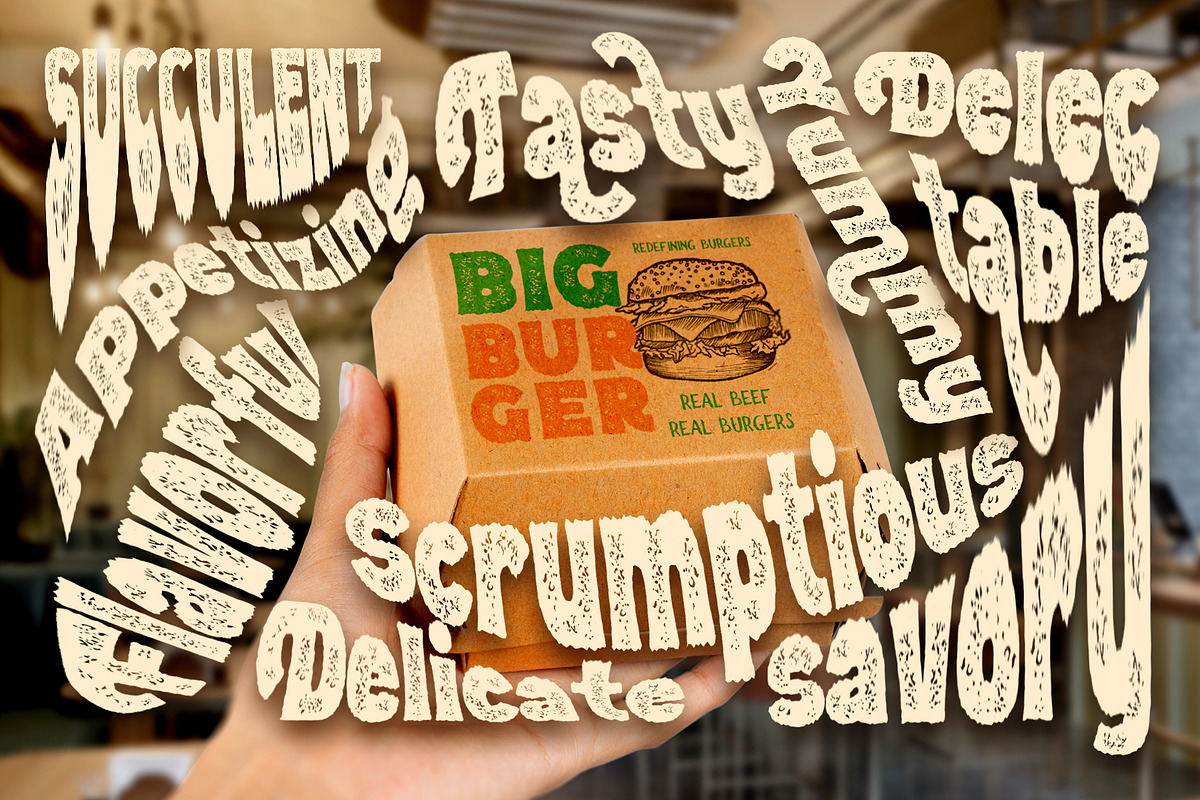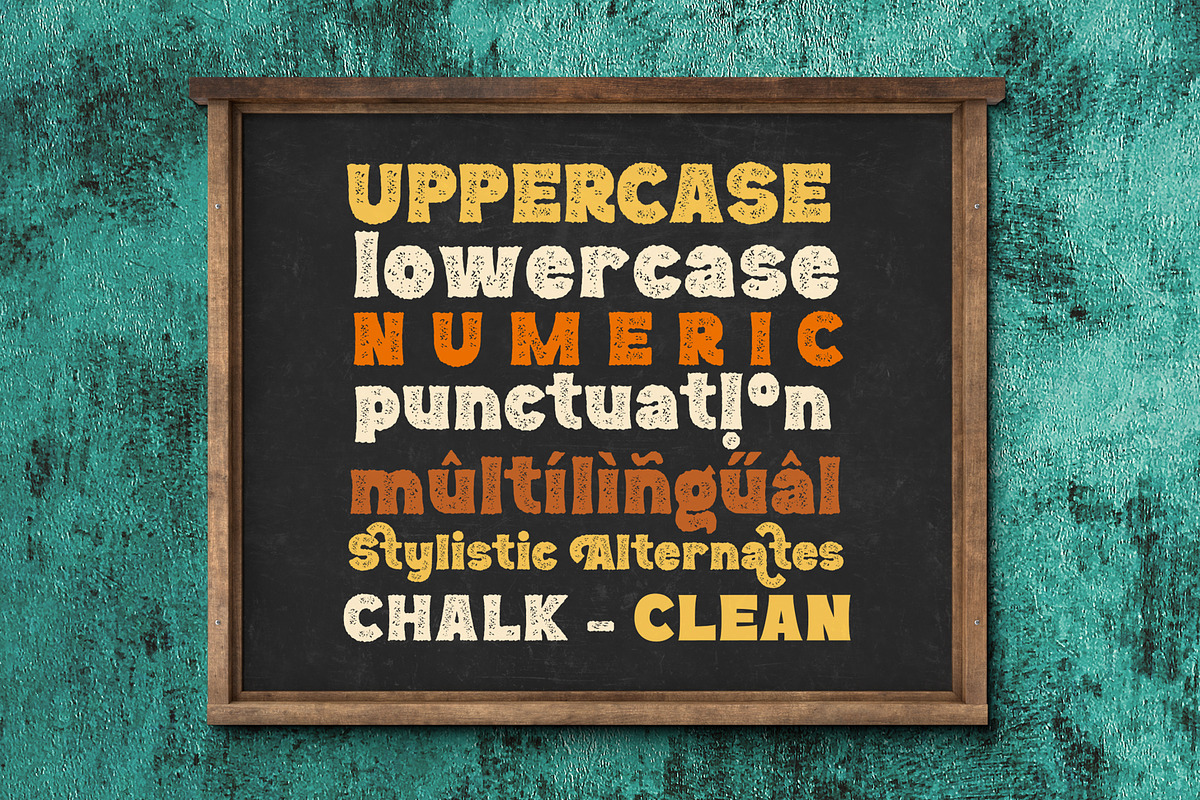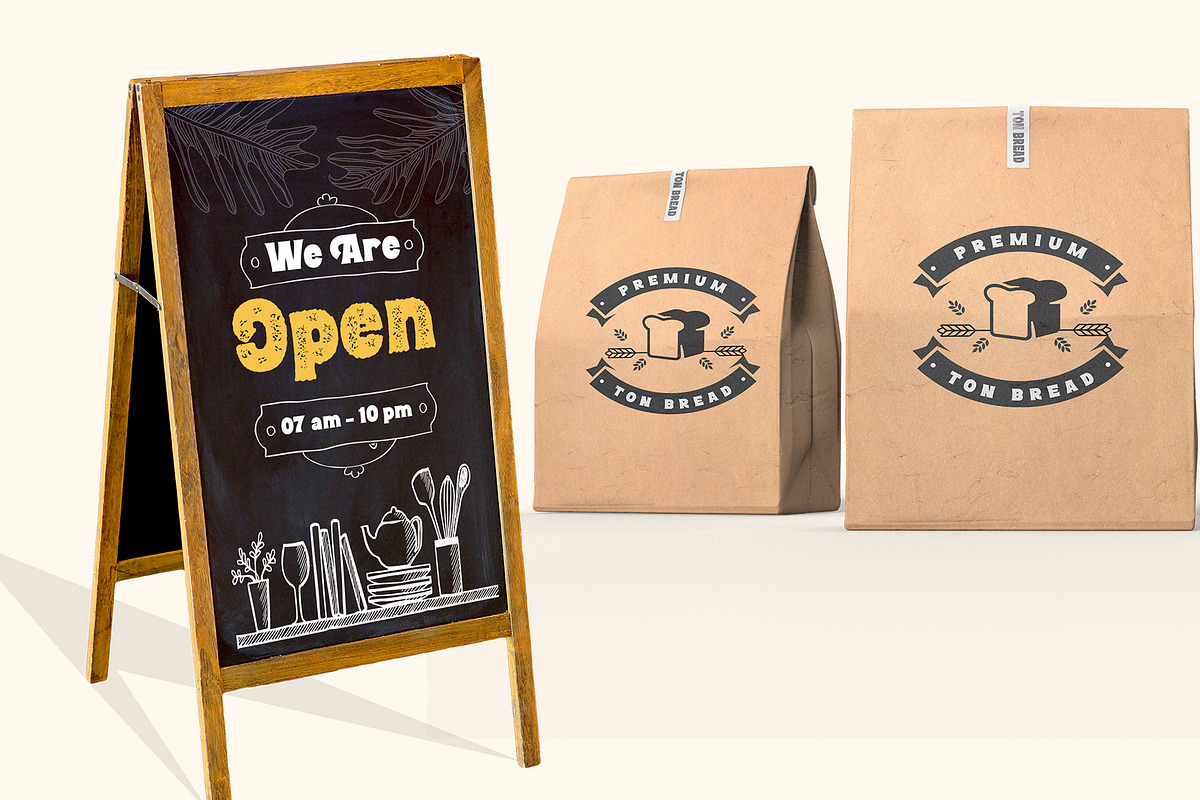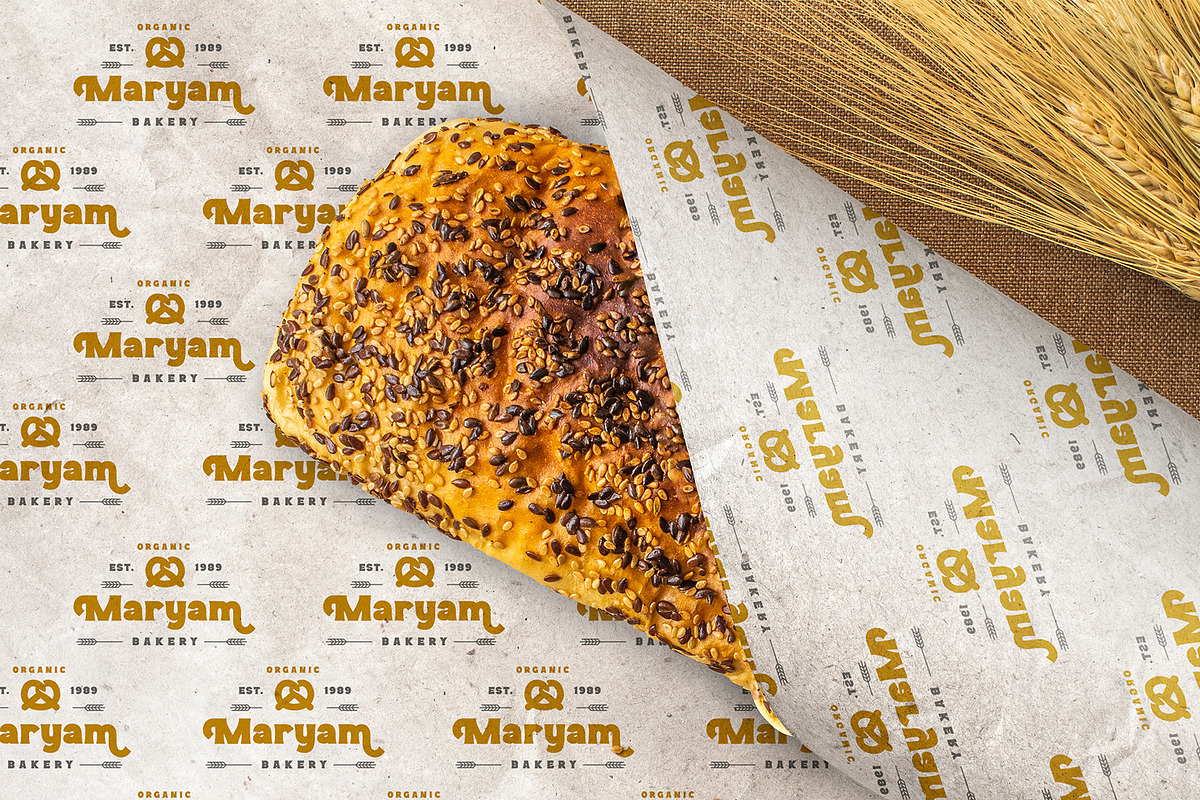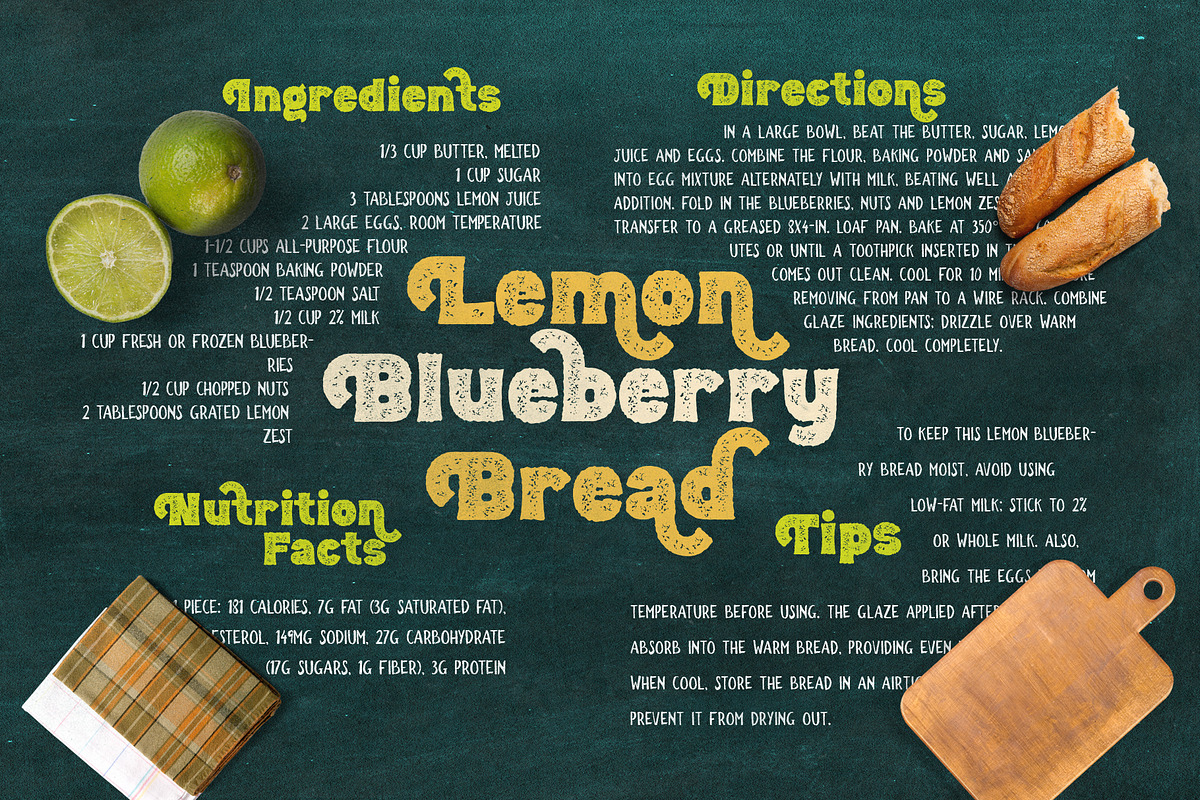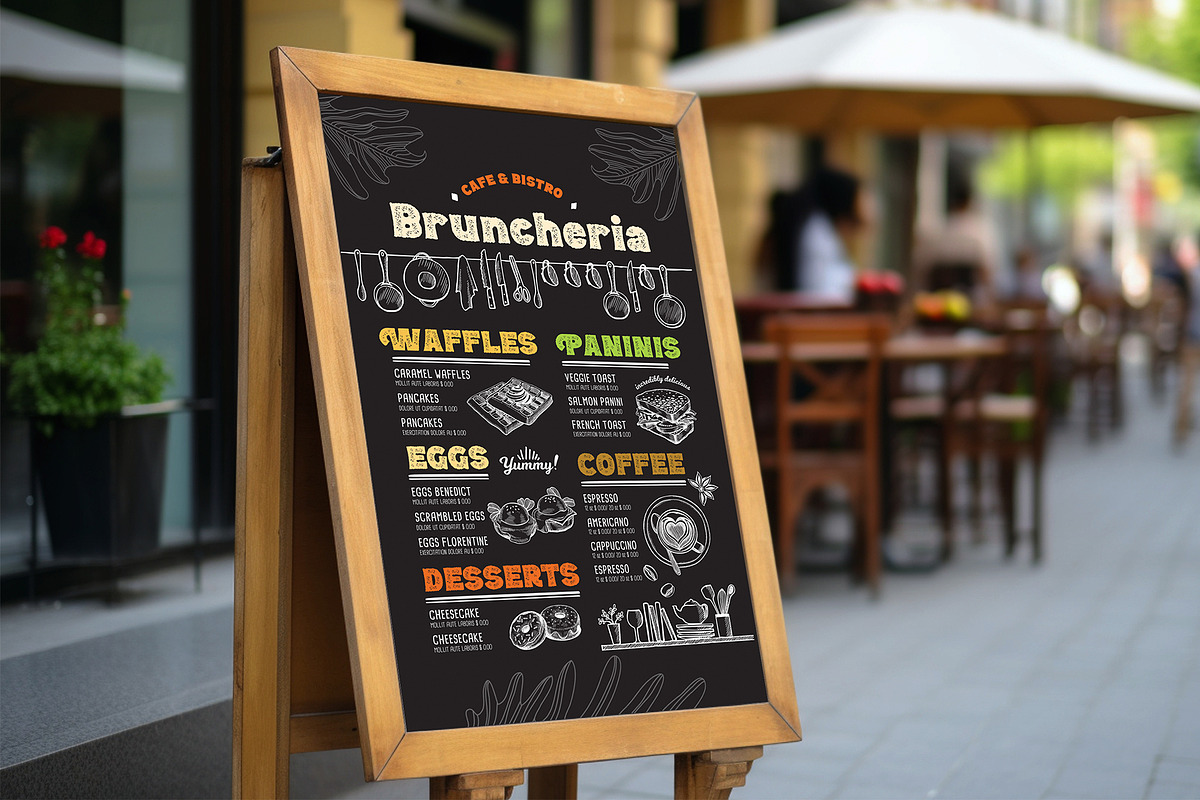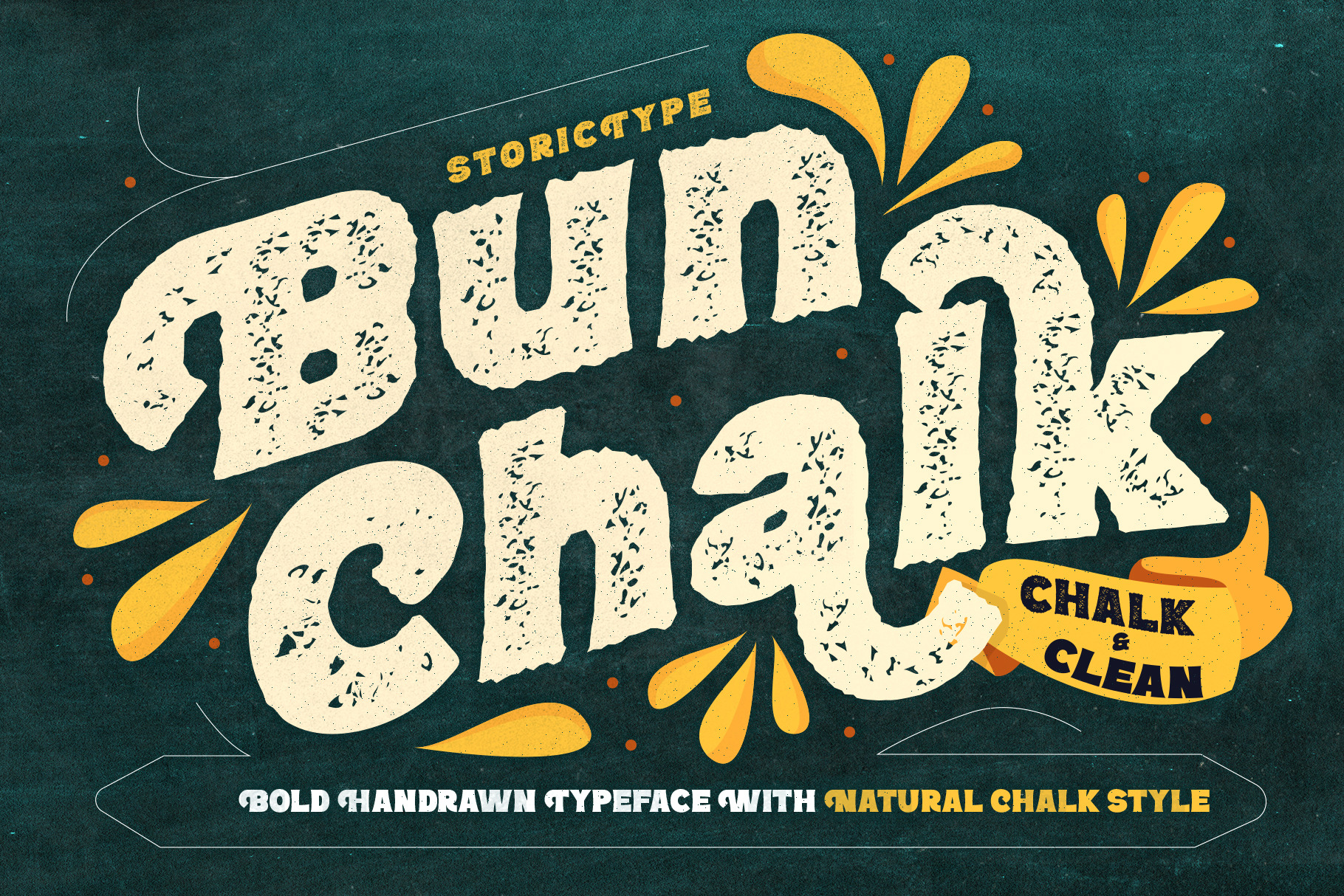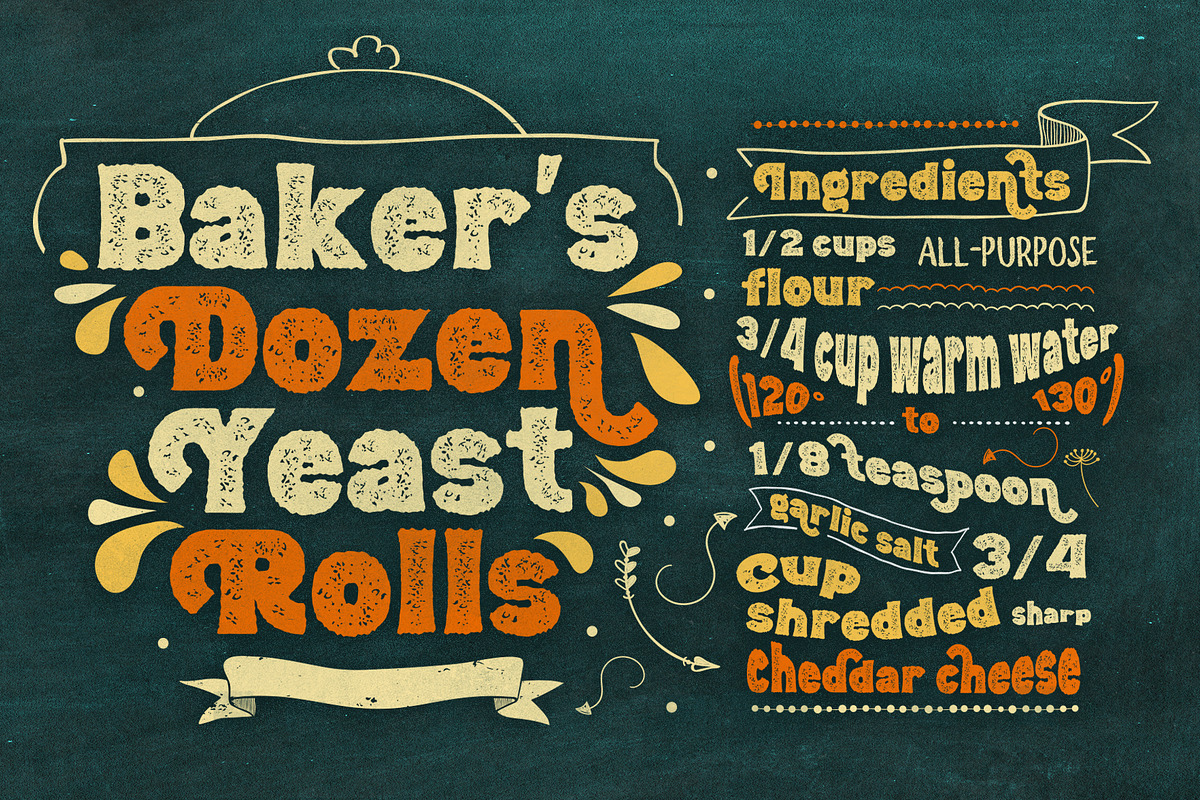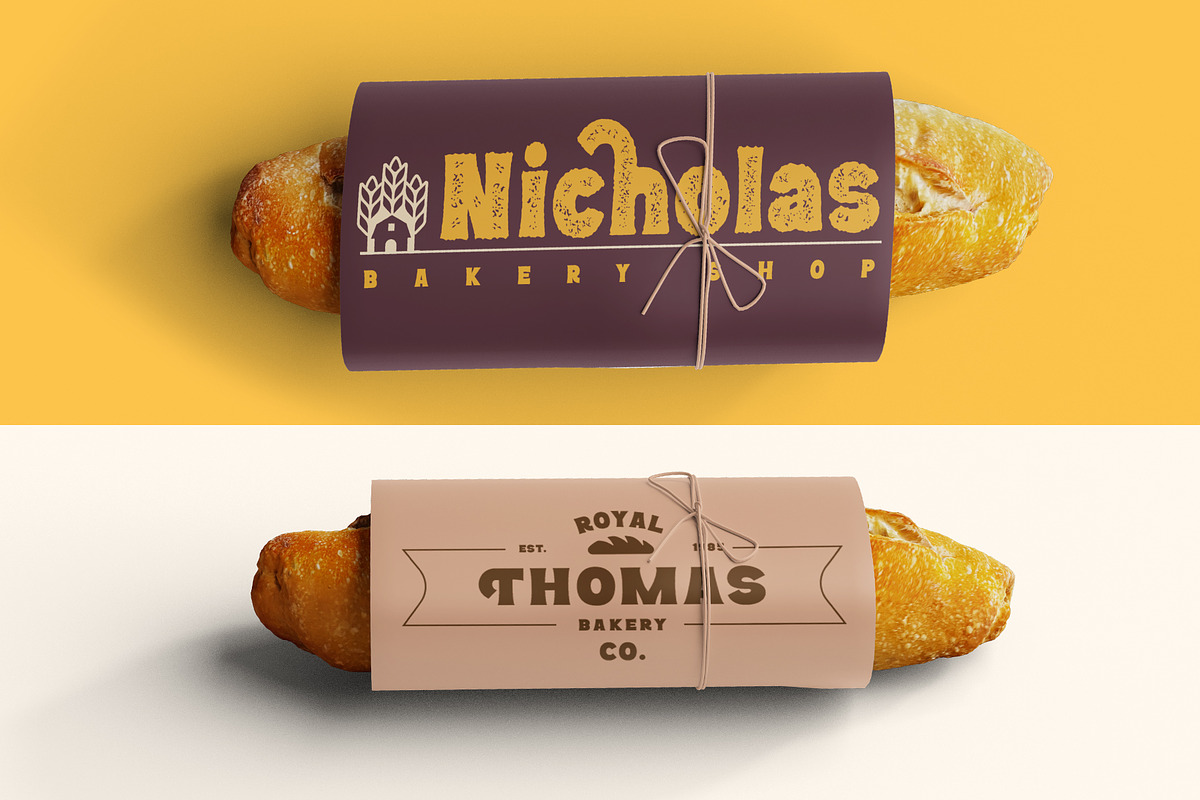
BunChalk - Chalk Display Font Duo
Introducing BunChalk Typeface
Here is new product, It's called Bun Chalk . BunChalk inspired by many lettering on menuboard chalk cafe and bistro, and it's specially designed for the resto who use chalk concept,menuboard.
This font consists of 2 types of fonts. They are Bun Chalk and Bun Clean . Bun chalk that has a chalk texture. as well as a Bun clean that is clean and without chalky effects. You can customize it according to your design needs.
Chalk up your brand with our one-of-a-kind chalk concept! Leave your mark and get noticed with custom branded chalk that makes a statement. Whether you're a hip cafe, a stylish boutique, or a savvy startup, our branding chalk is the perfect way to spread the word about your business. Write inspirational quotes, menu specials, sales announcements, or just your logo all over your windows and sidewalks.
Made from handmade quality chalk texture that goes on clean and texture typeface, it's ideal for businesses who want to grab attention and stand out from the crowd. Let potential customers know you're there with playful, eye-catching branded chalk that gets your name seen.